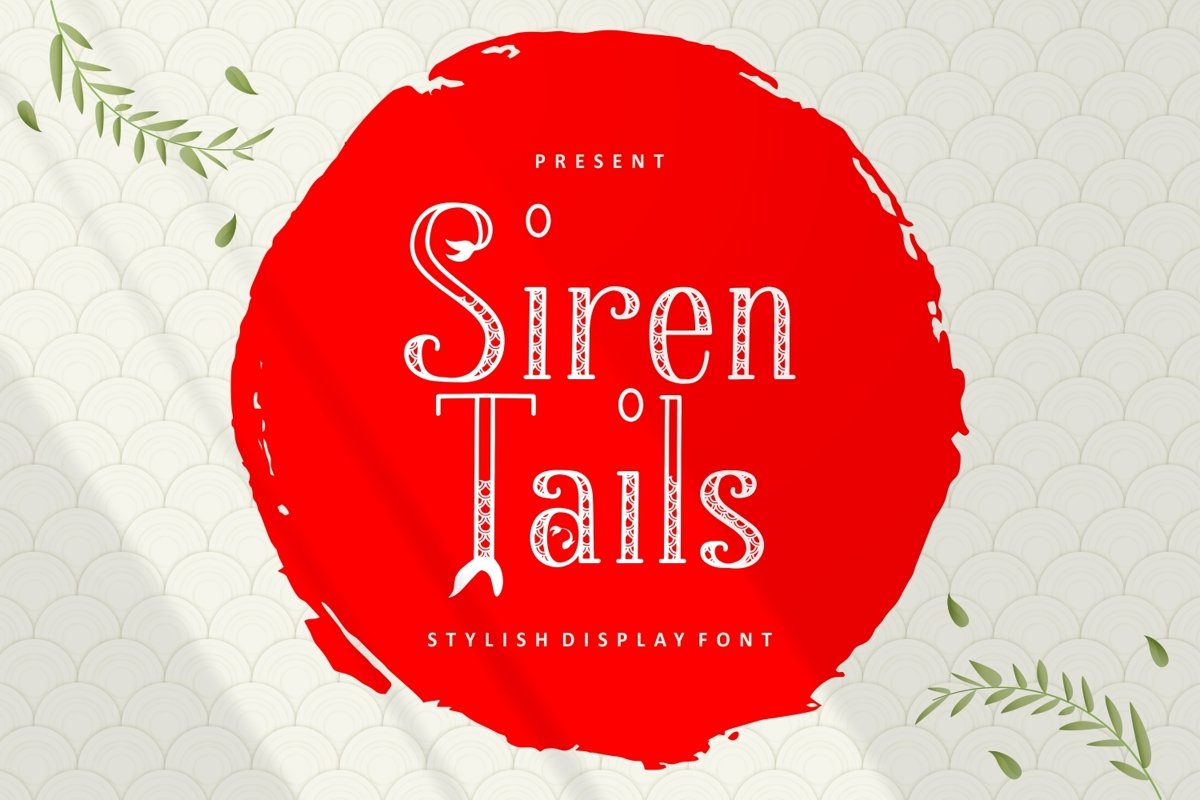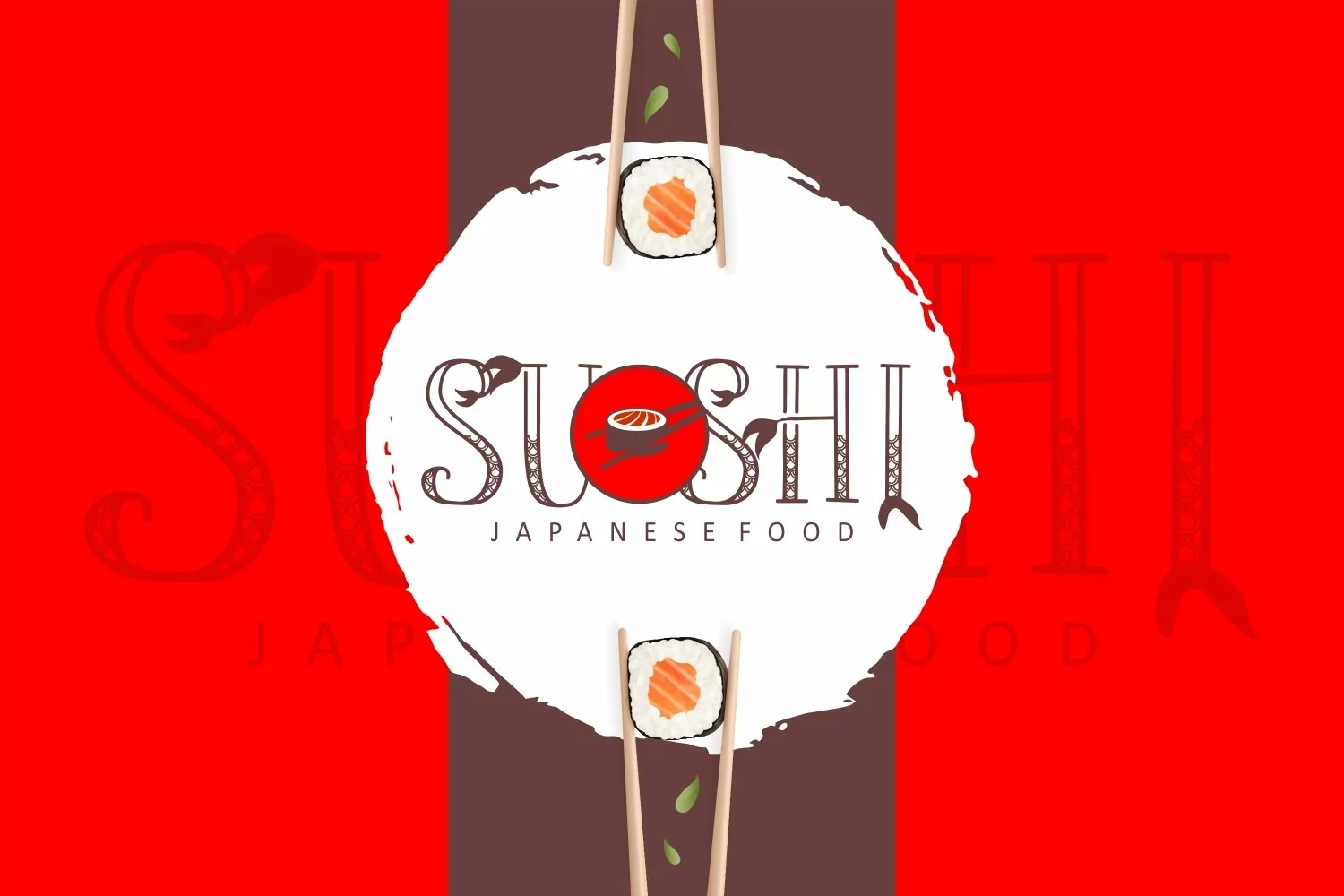
Siren Tails is a stylish serif display font come with modern themes. This font create most decorative with pattern inside. It matches applies in some designs such as the logotype, brand, packaging, quotes, poster, shirt, book, wedding invitation and more custom design. The features uppercase, lowercase, numeral, punctuation & symbol, multilingual support, PUA encoded (fully accessible without additional design software).
Siren Tails